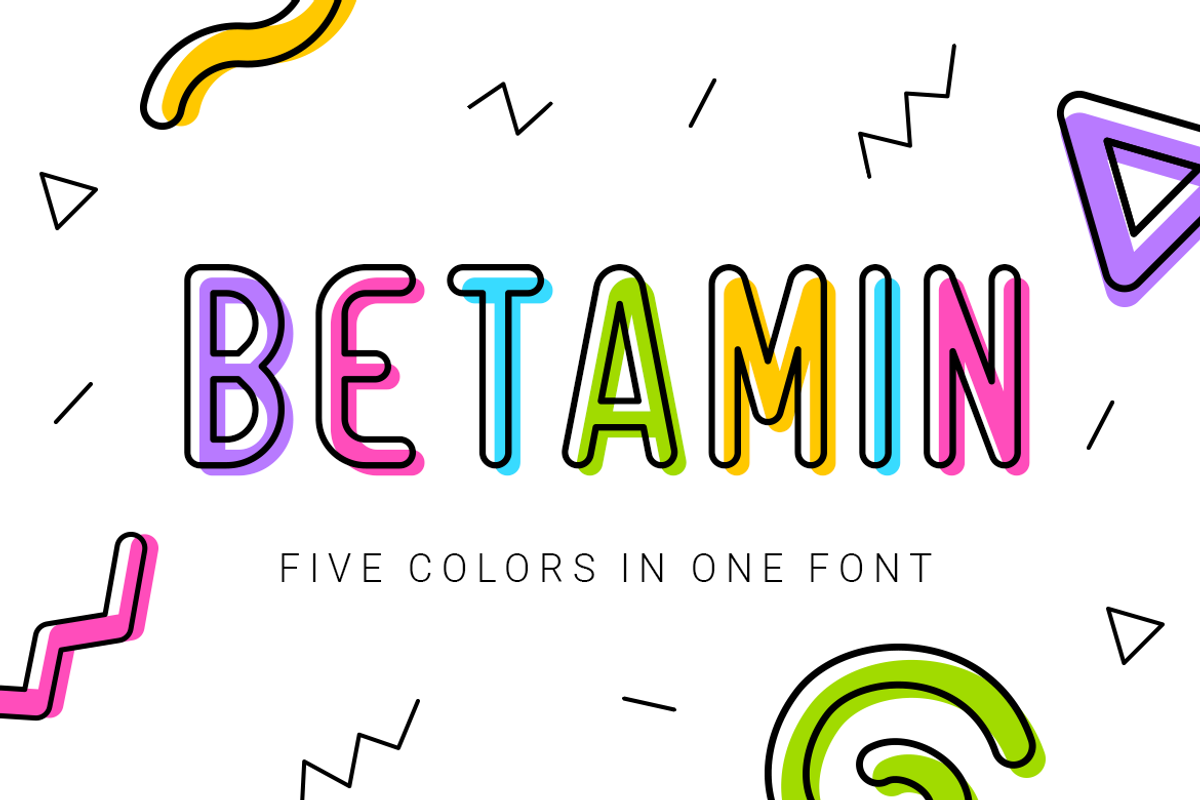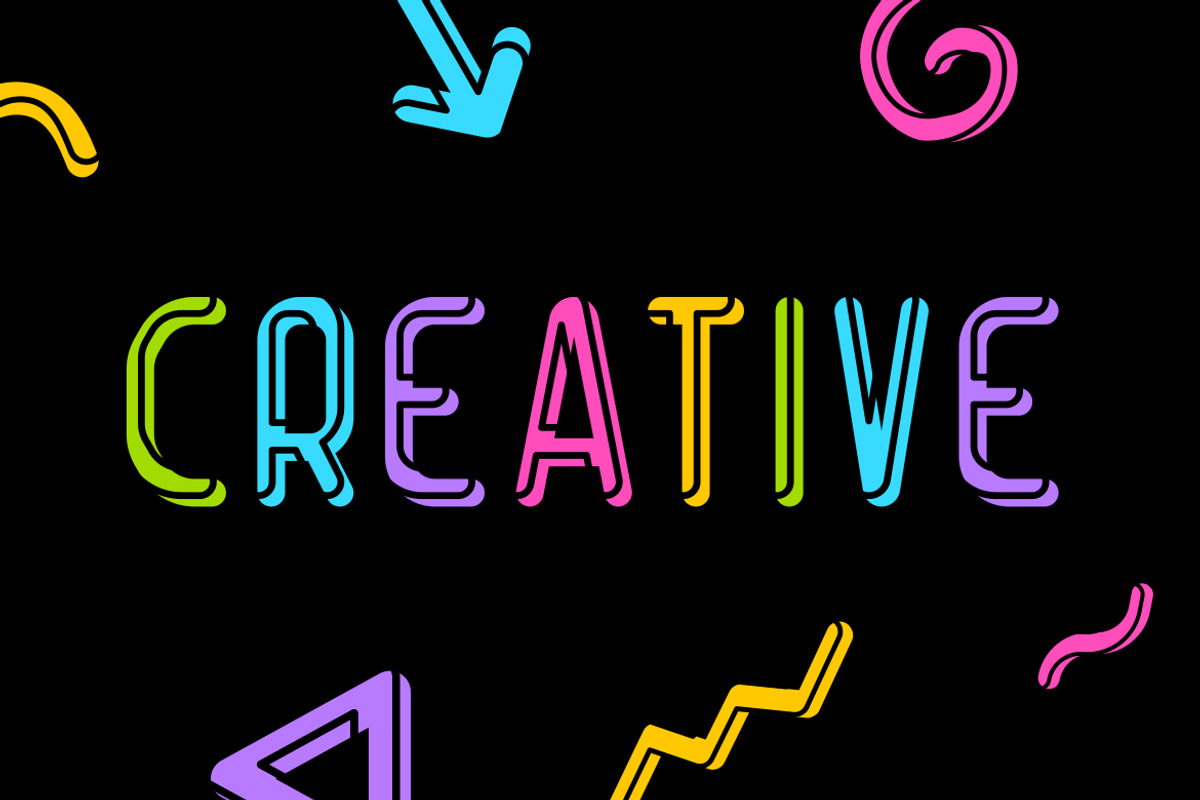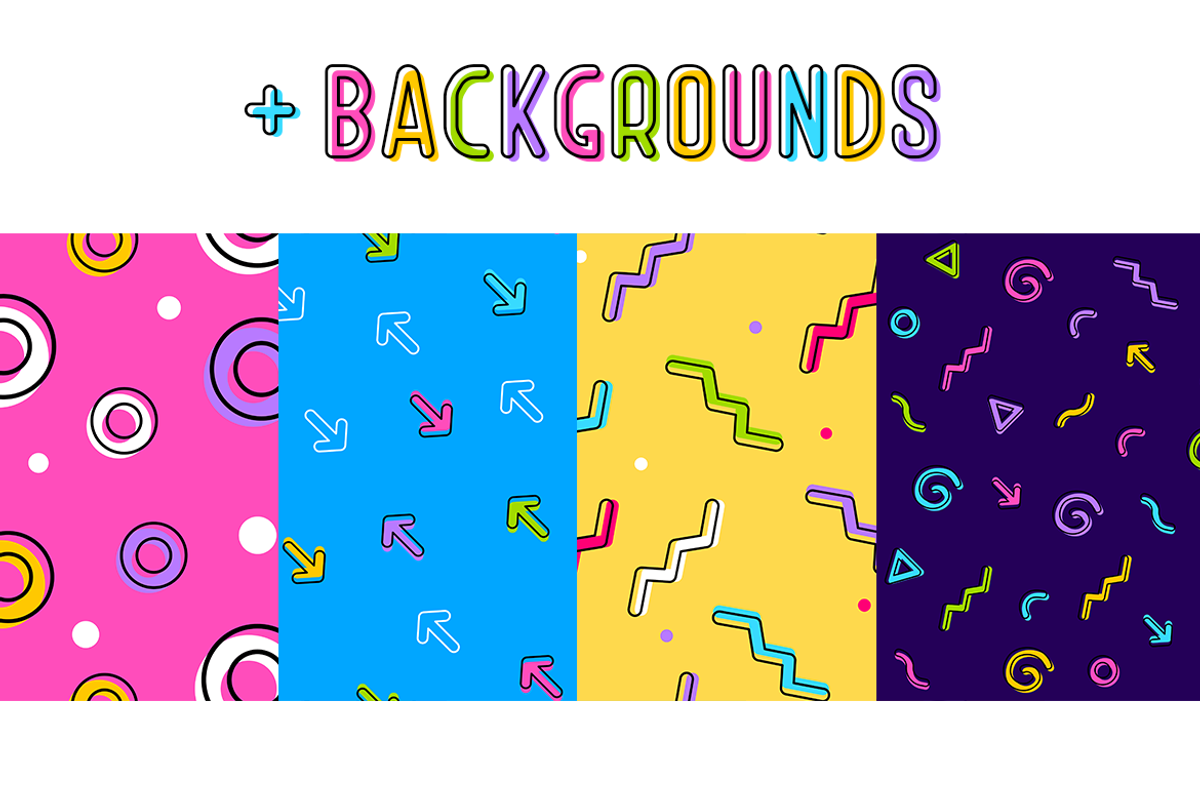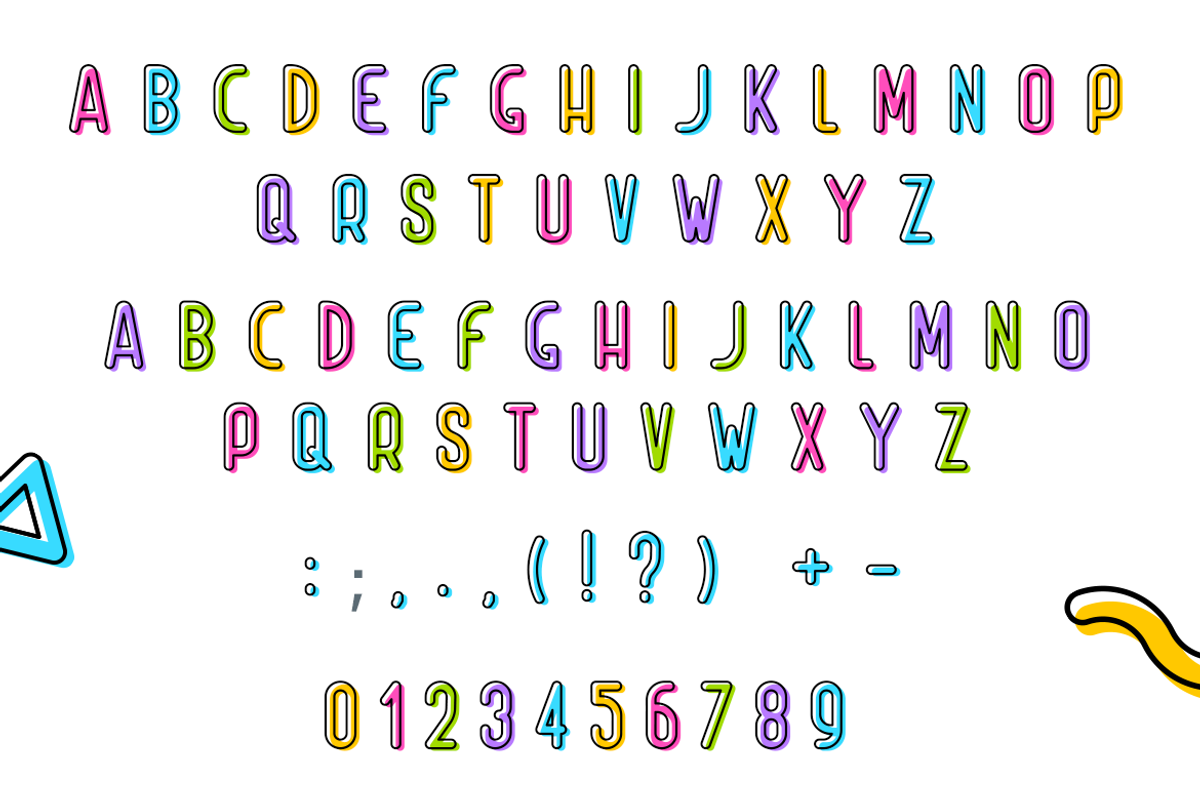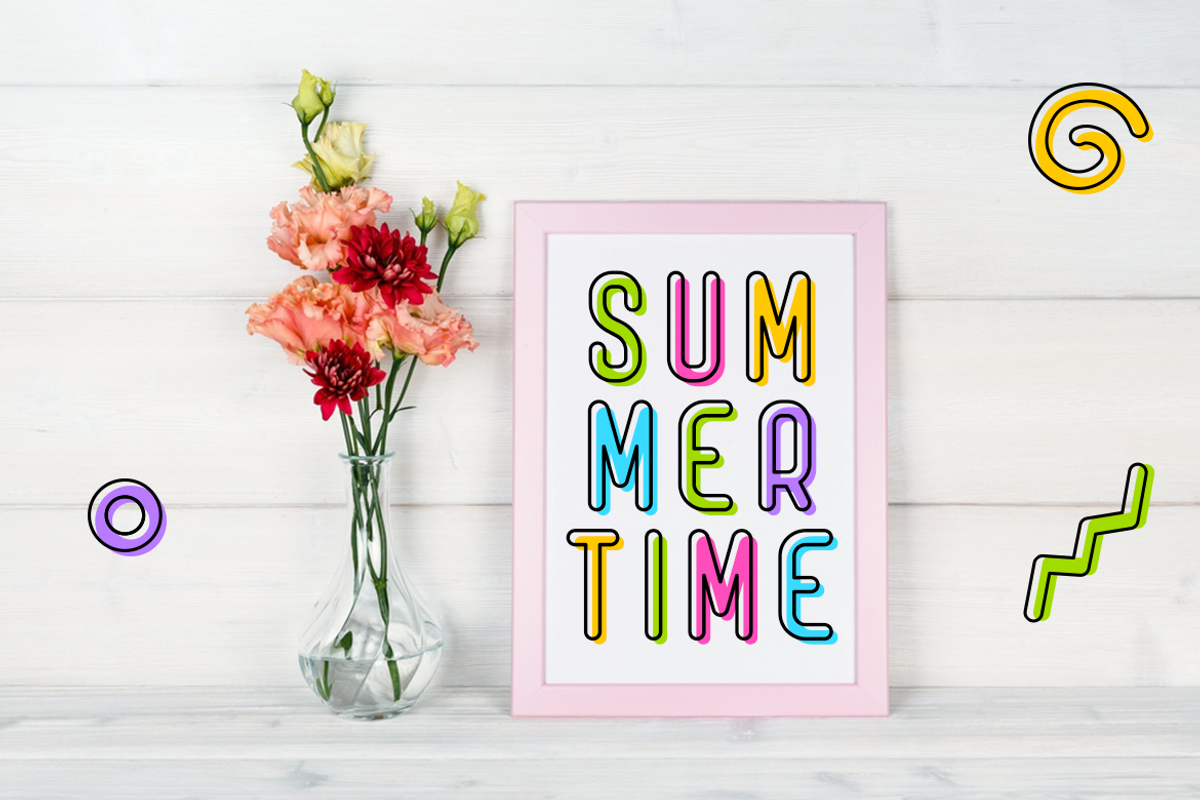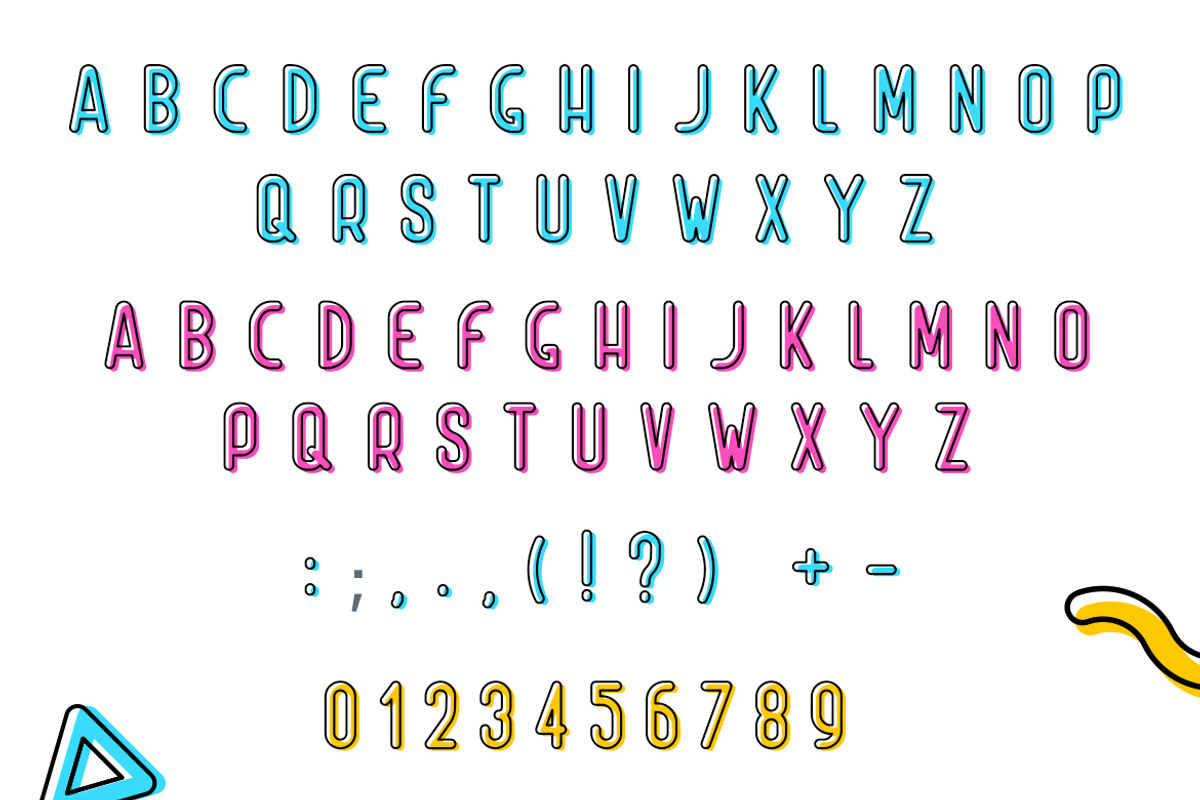
Betamin|colorful sans-serif font
Betamin is a color sans serif font designed with rounded lines. The font is bright and joyful, it works great to make short fun titles. The font has only capital letters in five different colors to make the headers varied. There is also a font option in which all the colors of the letters are mixed. So you can use the font as multi-colored or in one color of your choice. The font is supplemented with fun seamless pattern for more simple design creation.
numbers & punctuation
five different colors of font (pink, yellow, green, blue, purple)